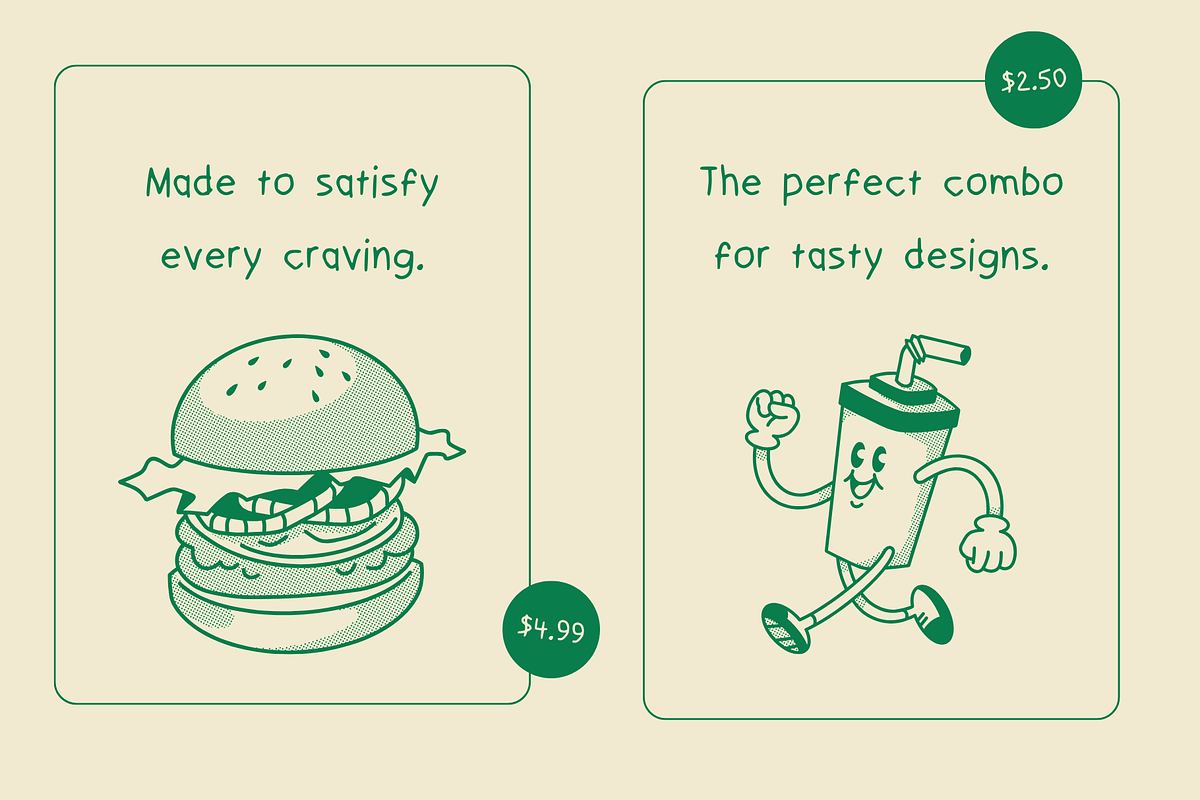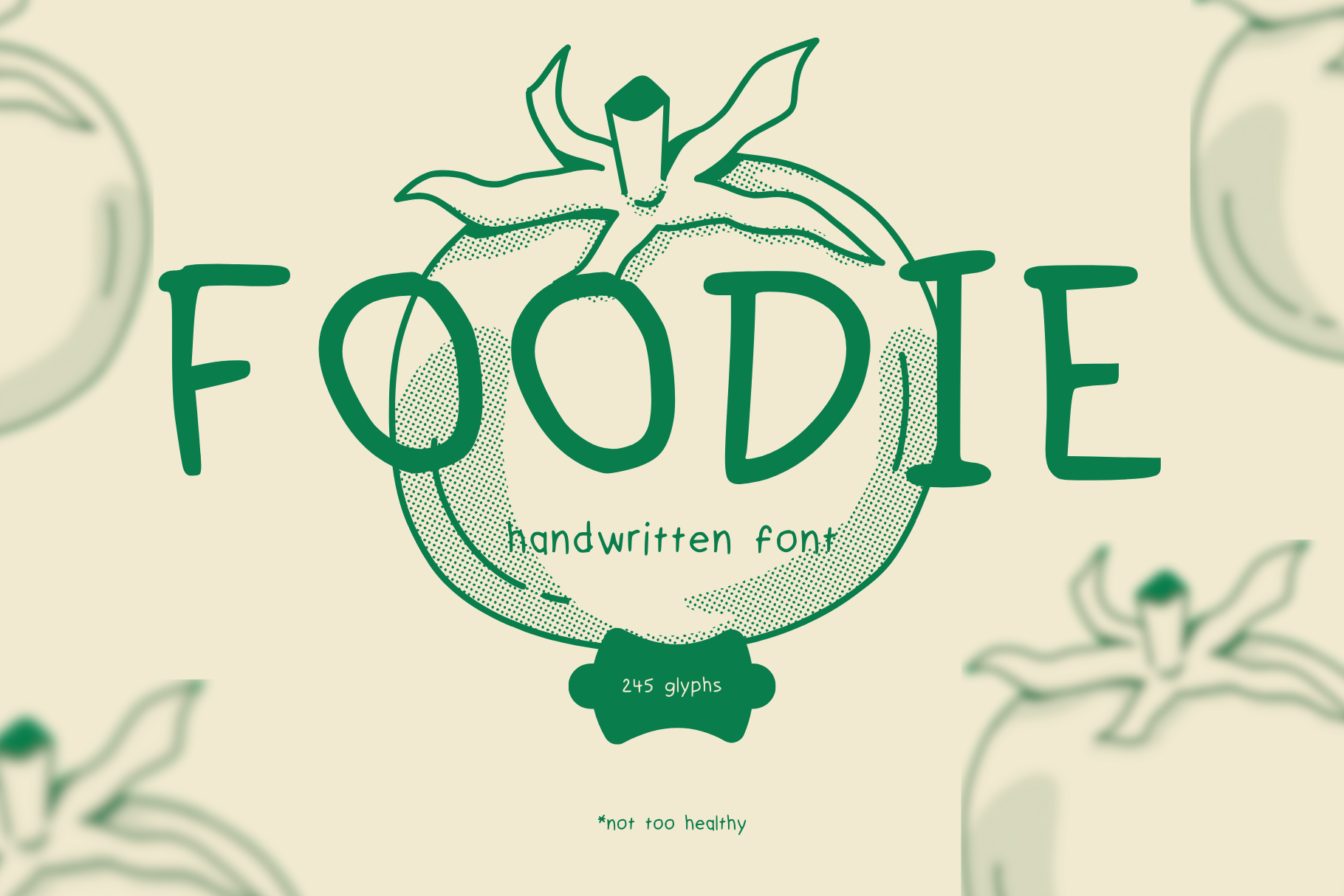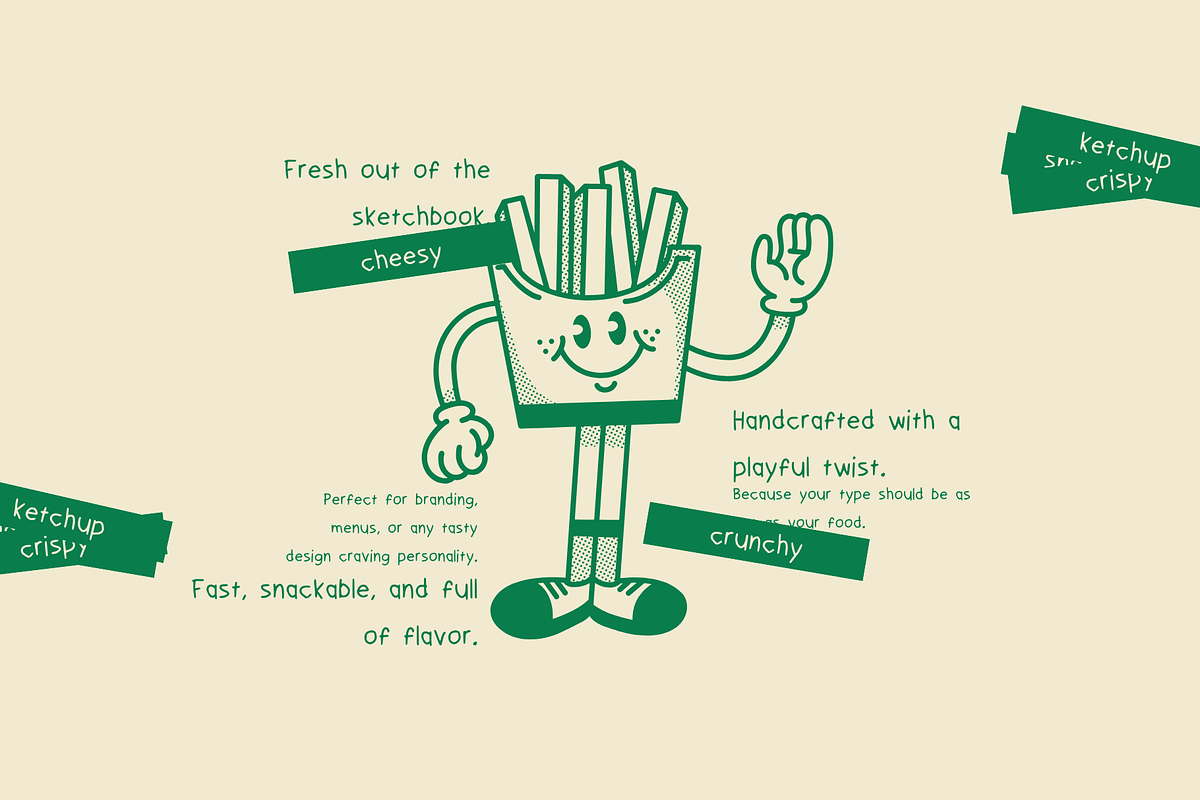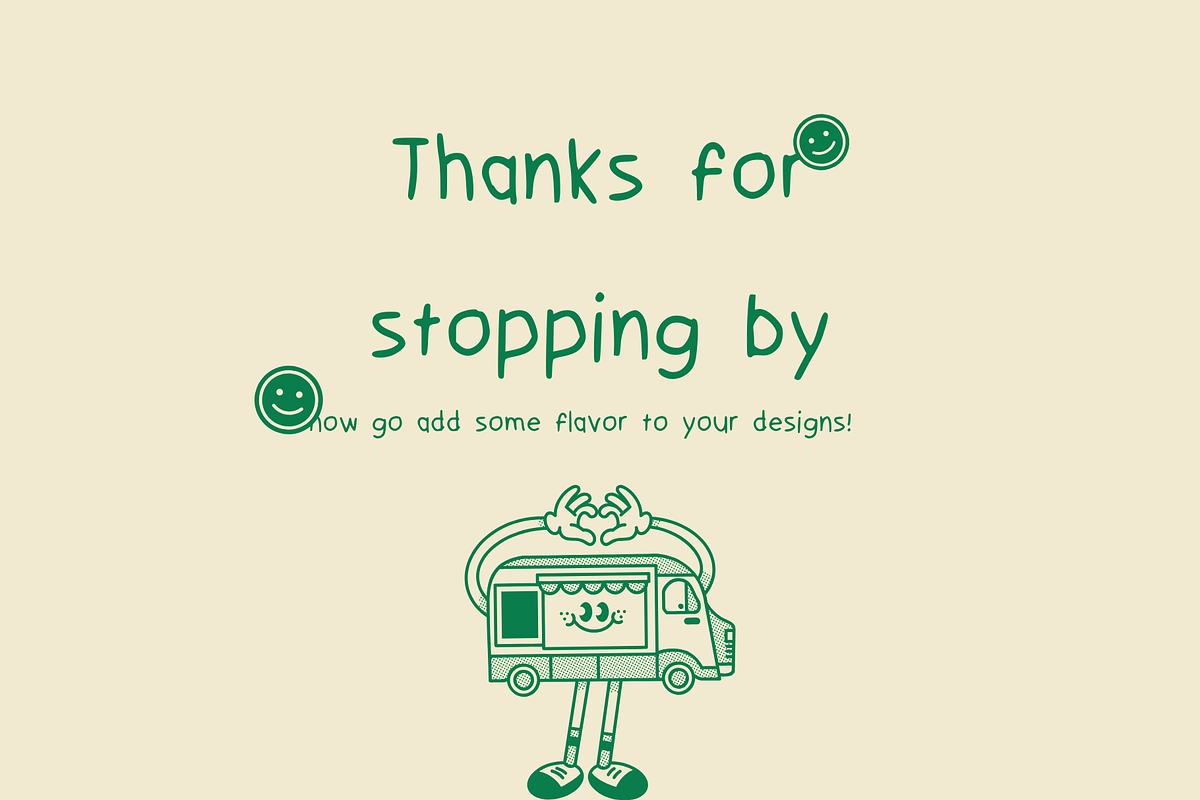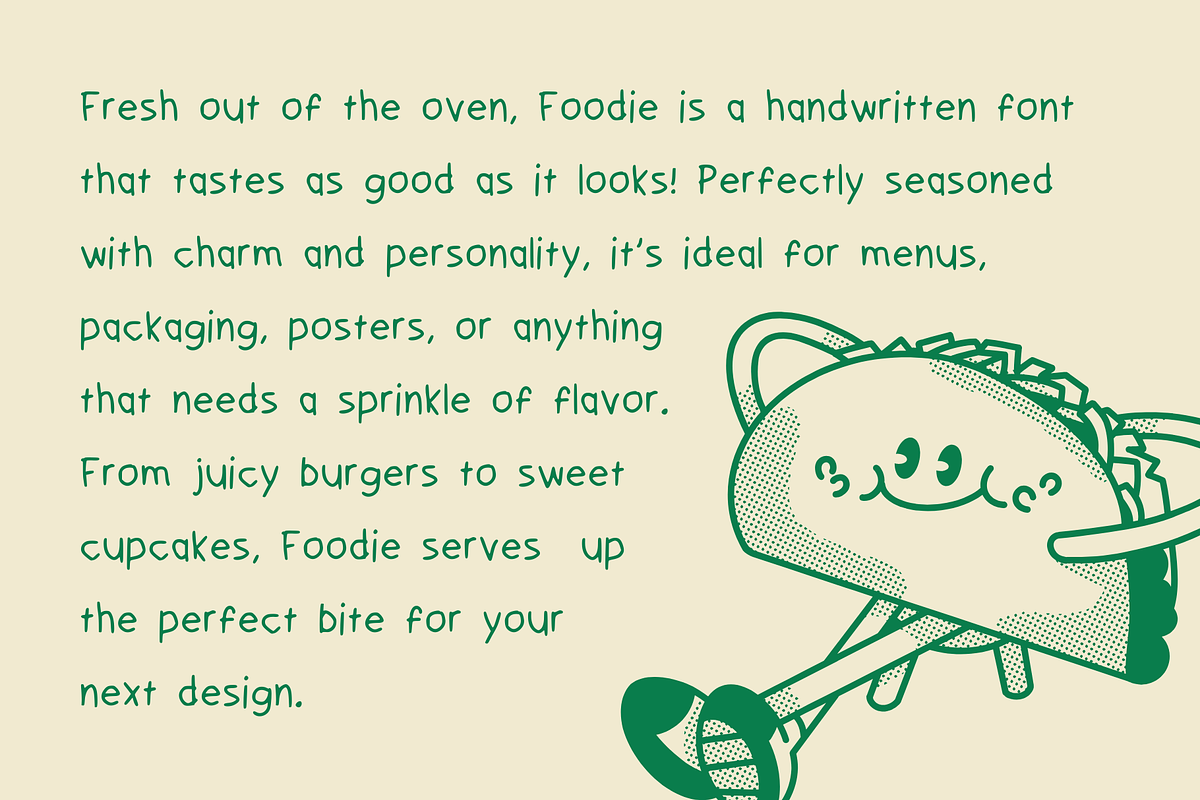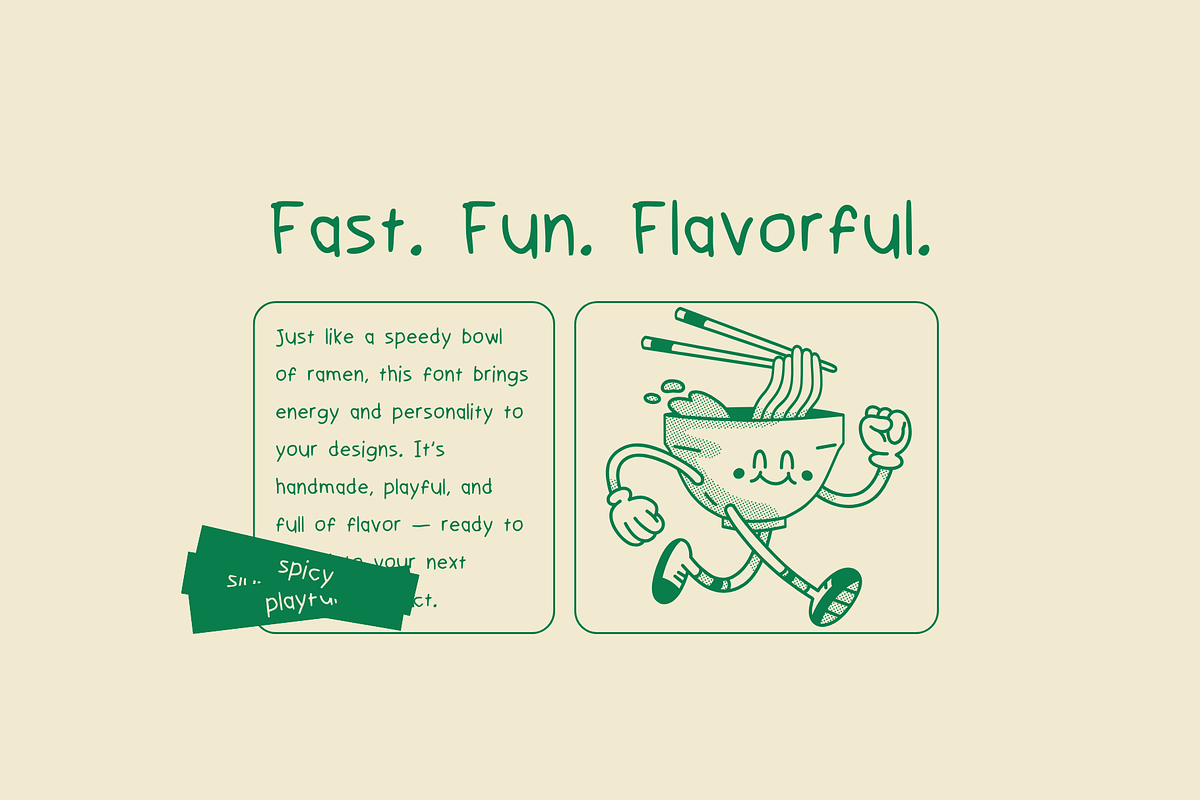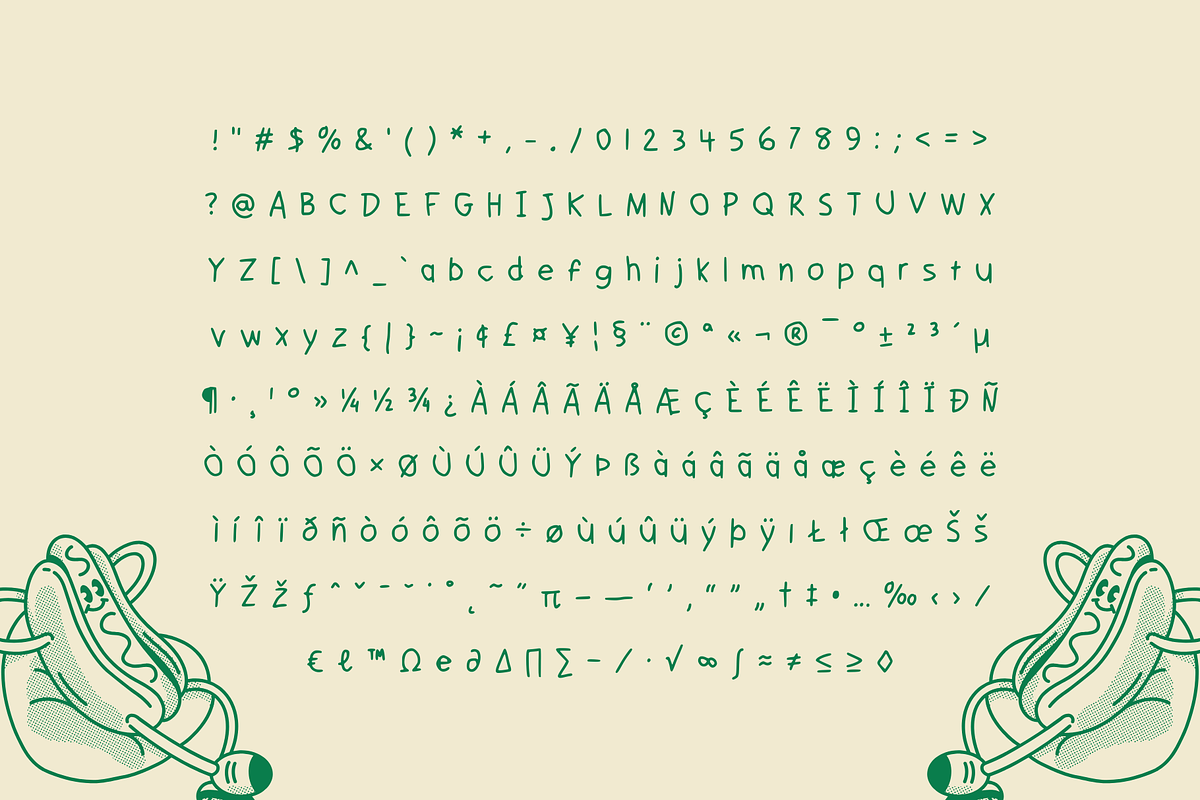
Foodie - Handwritten Font
Meet Foodie – a fun, doodle-style handwritten font inspired by the delicious world of food! With its playful lines and casual handmade feel, Foodie is perfect for projects that need a warm, friendly vibe. Whether you're designing menus, packaging, social media posts, or creative branding, Foodie adds a lighthearted charm that’s hard to resist.
This font is ideal for: ✔ Cafe menus, bakery branding & food packaging ✔ Stickers, labels & logo design ✔ Kids’ books, journals & scrapbooking ✔ Kawaii, aesthetic, and doodle-inspired content ✔ Quotes, planners, and social media posts